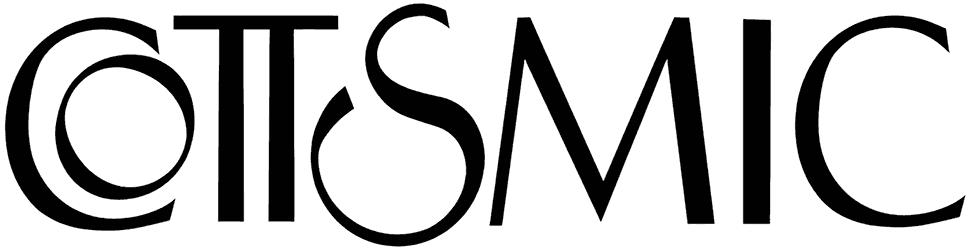
Cottsmic Font
Adopt a modern and elegant style in your project by using our all-caps sans serif font, Cottsmic. It conveys a sense of femininity without any complexity. This font will bring your design to another level, let it shine, and make it brighter. It can be applied perfectly for fashion branding, wedding invitations, magazine/book covers, product packaging, and advertising materials.